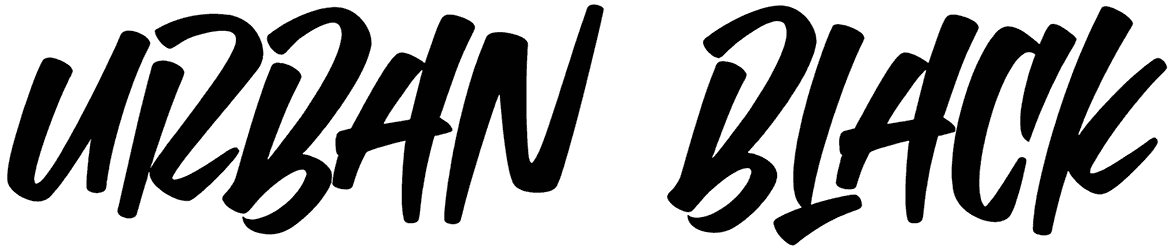
Urban Black Font
By using a script font like Urban Black, you can greatly increase the chances of your success. Since its characters come with a curved and crooked style, it can be perfectly fit for posters, book covers, magazines, diplomas, or invitations. Aside from not supporting lowercase letters, it can share a sense of personalization, freshness, precision, or delicacy with the audience.